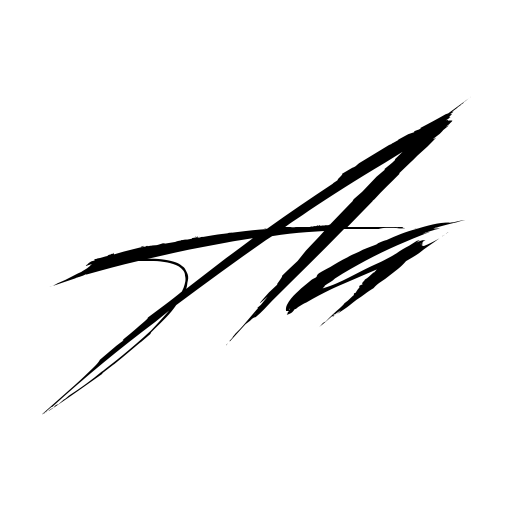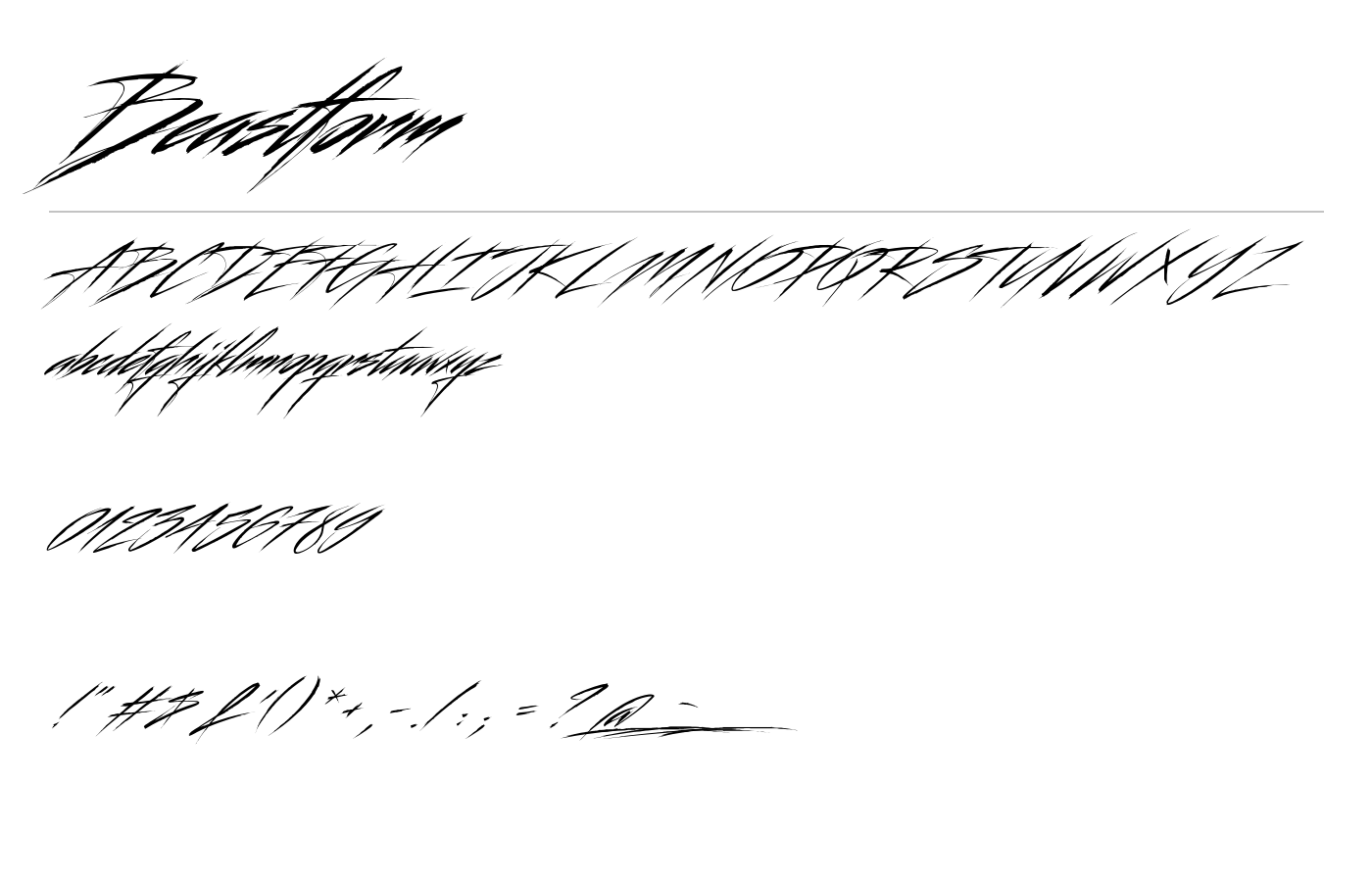
Beastform is a dynamic and edgy script font that captures a sense of wild energy and movement with its sharp, jagged strokes and high contrast lines. Its slender, slanted letterforms convey speed and intensity, making it perfect for bold, expressive branding, extreme sports logos, or striking editorial headlines that demand attention. This font excels in designs where a raw, fierce personality is needed to create an impactful visual statement.
Beastform Font
About Beastform Font
| Font family | Beastform Font |
| Designer | Youssef Habchi |